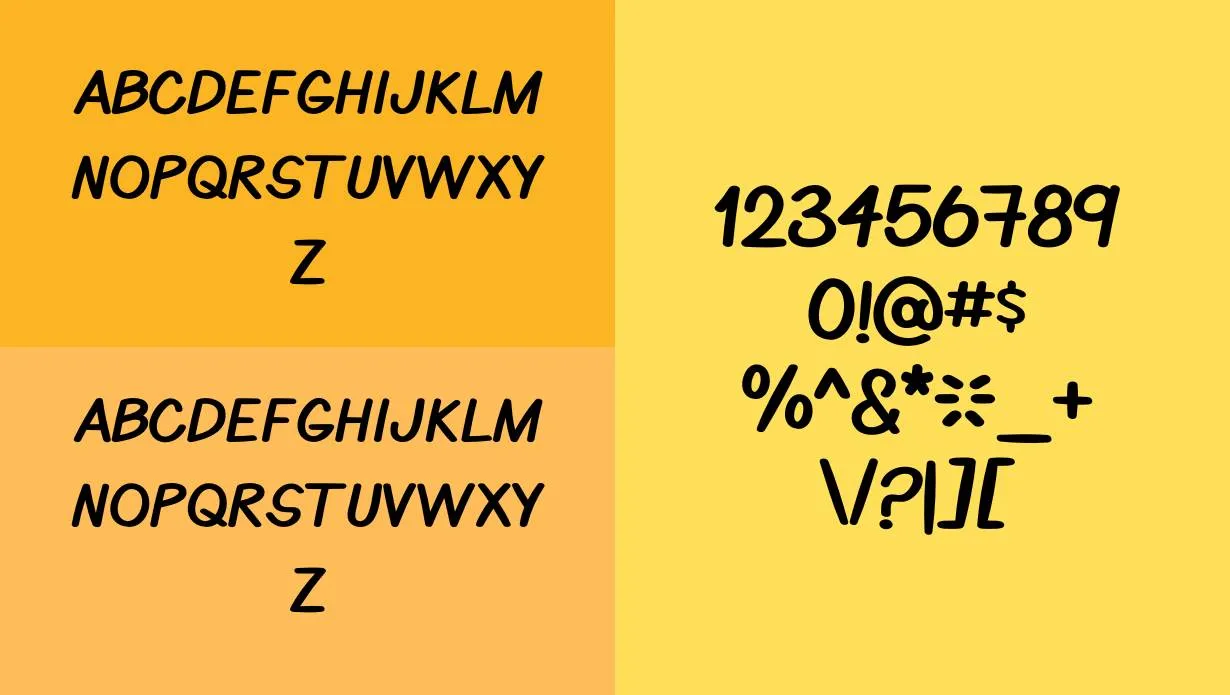
Benja Comic font brings a playful and fun essence to any design it graces. Its quirky and irregular style makes it a popular choice for comic books, children’s literature, and creative projects aiming for a light-hearted tone.
The font’s unique character and charm offer an inviting and relaxed atmosphere, making it perfect for brands or designs seeking to connect with a younger or more playful audience. Its lively and informal nature adds a sense of creativity and vibrancy, making it an ideal choice for projects that require a touch of whimsy and personality.